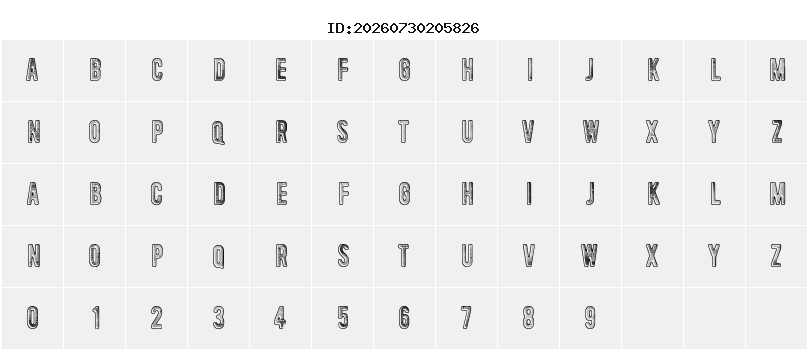
• Font Name: Lovely Weekend
• Full Font Name: Lovely Weekend
• Designer: junkohanhero
About Lovely Weekend.ttf
Lovely Weekend.ttf is a modern, elegant sans-serif font designed for ultimate readability and visual harmony. Perfect for branding, headlines, web design, and print materials.